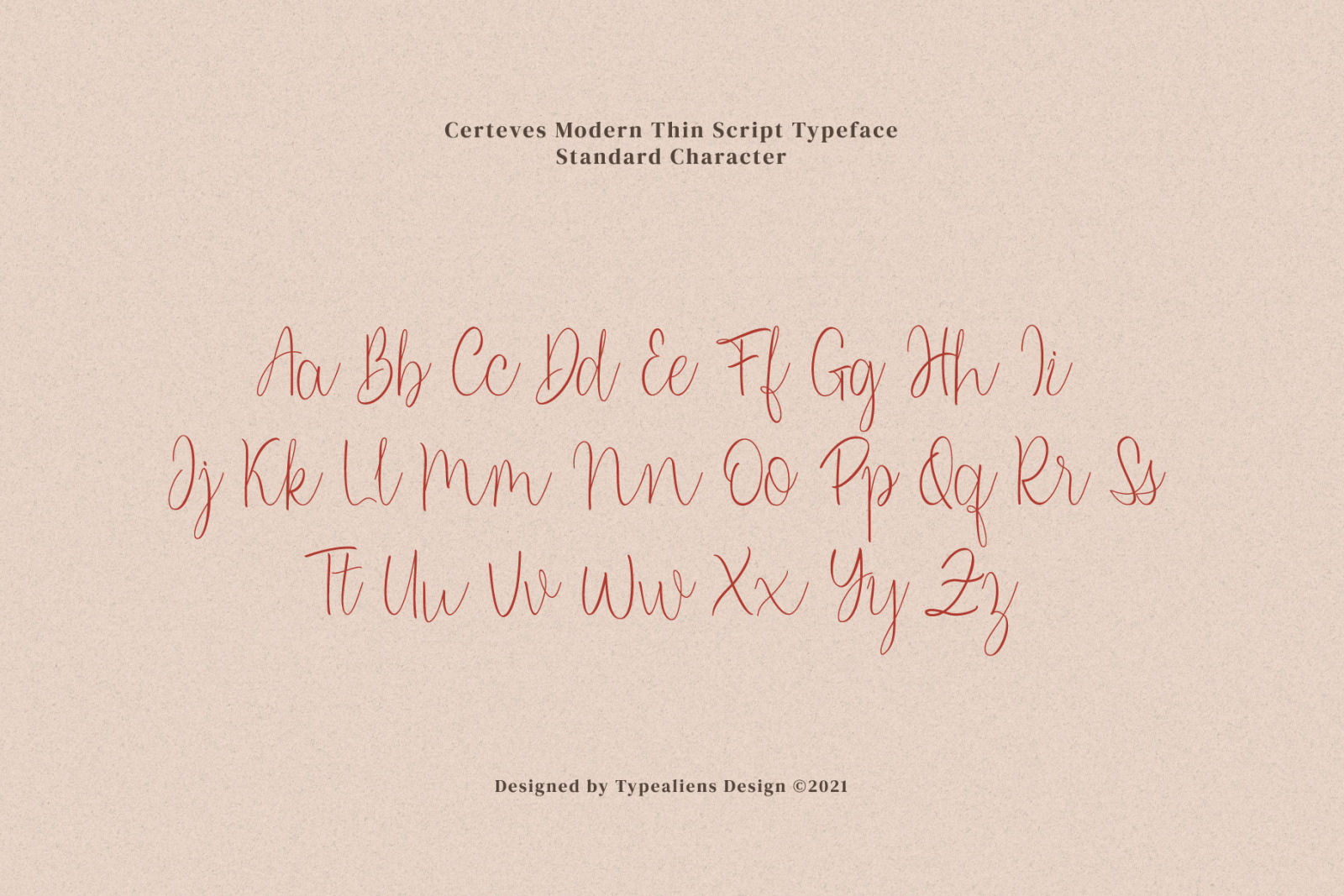
Certeves Font
CERTEVES is a beautiful and modern script font, perfect for social media, logotype, branding, logo badges etc. With a unique and modern style.